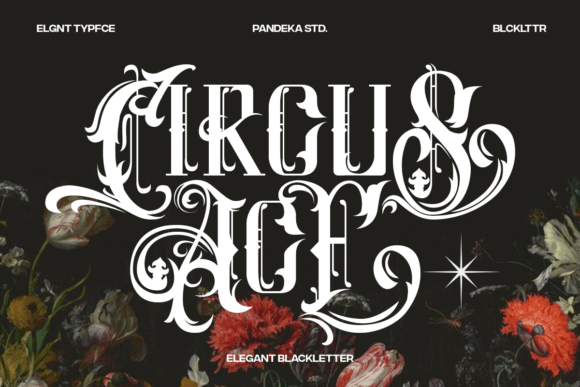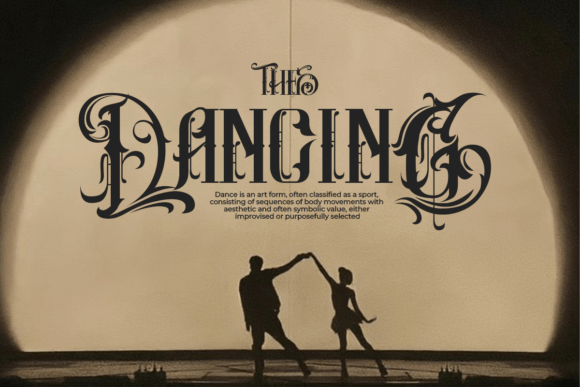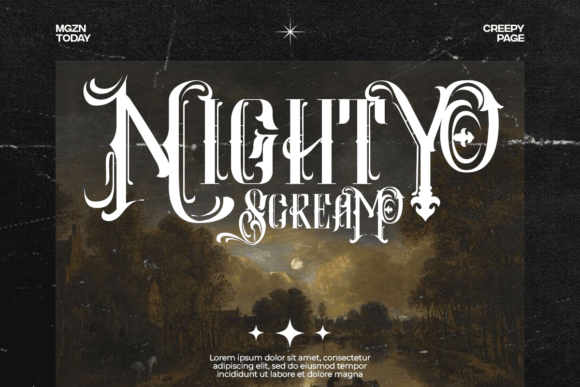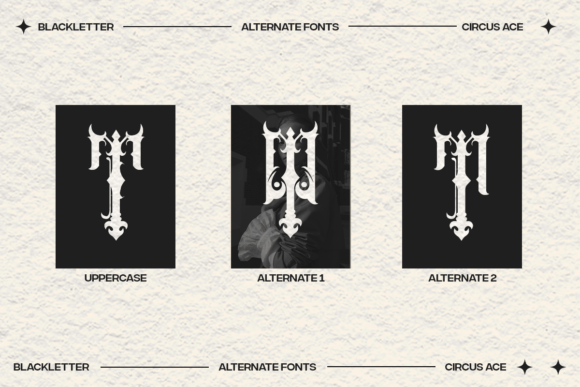
Circuse Age Font
About the Circuse Age Font
Welcome to the world of Circuse Age Font, a typeface that will inspire your next great project. Circus Ace is a font inspired by the Blackletter typeface, made with a modern impression but still looks strong and unique. Supported by alternative options such as swash, ligature, and alternative characters, making Circus Ace Typeface Blackletter very easy to create designs with strong or dark themes.
Circus Ace Typeface is very suitable for use in making music album cover designs, tattoo logos, whiskey labels, packaging pomades and so on which are made with blackletter concepts.
Circuse Age Font Usage Examples
Circuse Age Font Example